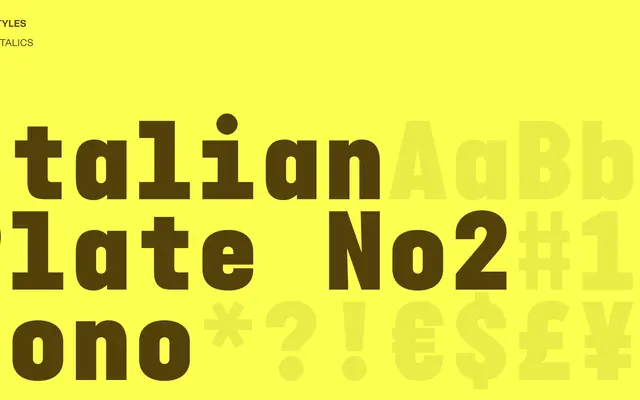
Italian Plate No2 Mono
A monospaced variant of the Italian Plate No2 family from Playtype, carrying the series' industrial character into fixed-width form.
Part of the Italian Plate No2 family from Copenhagen-based Playtype, this mono cut adapts the series' structured aesthetic for fixed-width applications. Its name evokes the engraved lettering of industrial nameplates and technical printing. Suited to coding interfaces, tabular data and editorial contexts where a technical, utilitarian tone is needed.
The name explicitly identifies this as a mono variant, fitting within the monospaced category. The Italian Plate lineage suggests a structured, engineering-influenced aesthetic common to industrial monospaced typefaces.